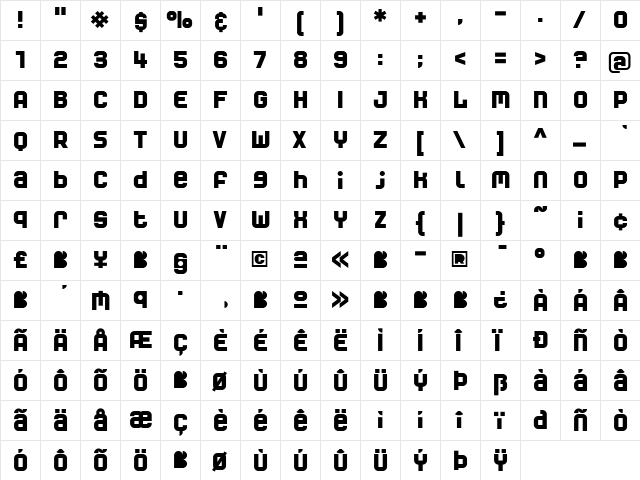
World Medium
Design Context for World Typeface
World offers clean, dependable letterforms without strong stylistic allegiance, making it a practical choice for designers who need flexibility.